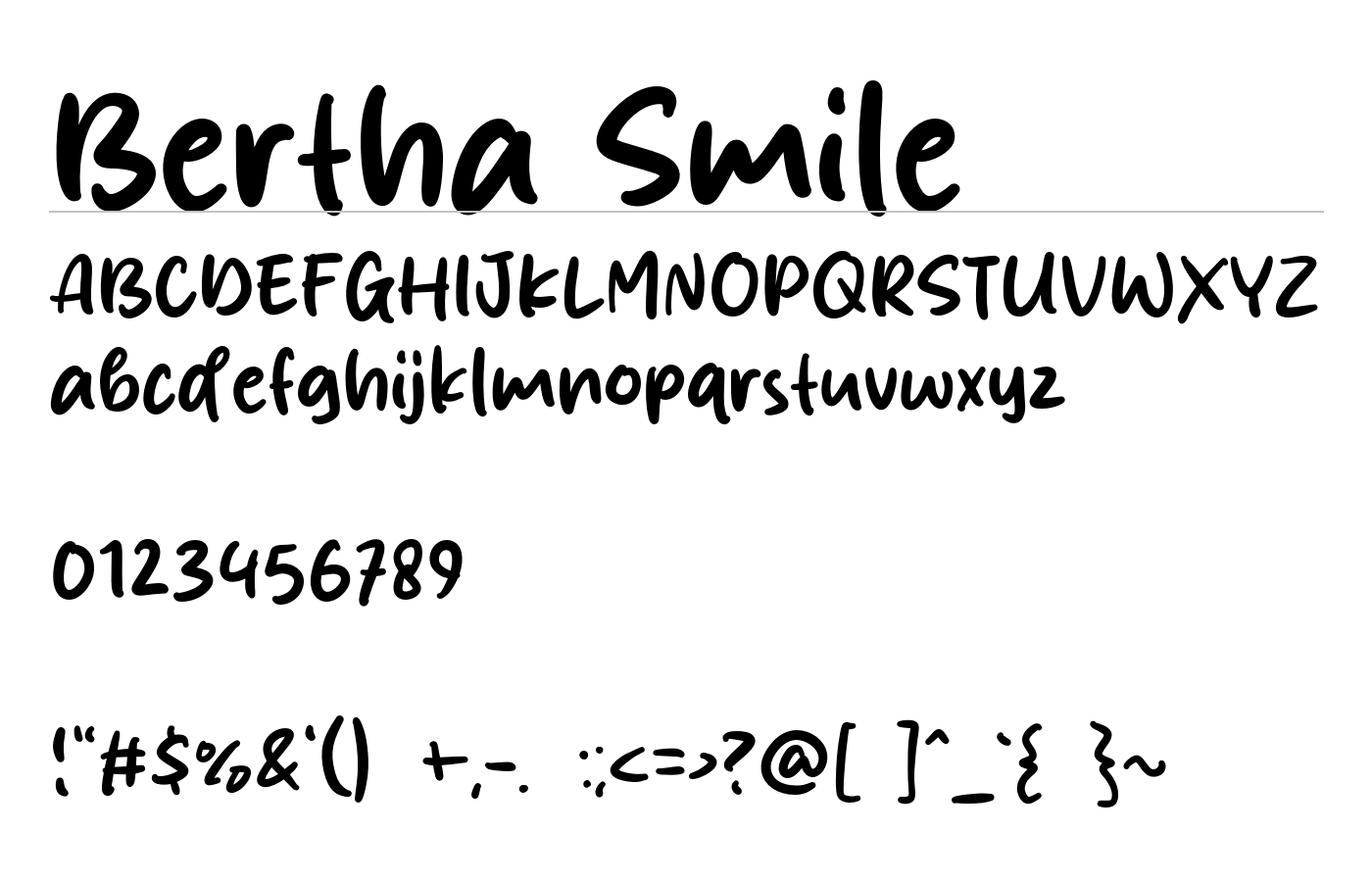
Bertha Smile is a lively and friendly handwritten font with a casual, playful vibe. Its rounded, slightly irregular letterforms and medium weight create a warm, approachable feel, making it ideal for informal branding, greeting cards, and creative projects that want to convey personality and charm. This font works well in headlines and short text where a personal, cheerful touch is desired.
Bertha Smile Font
About Bertha Smile Font
| Font family | Bertha Smile Font |